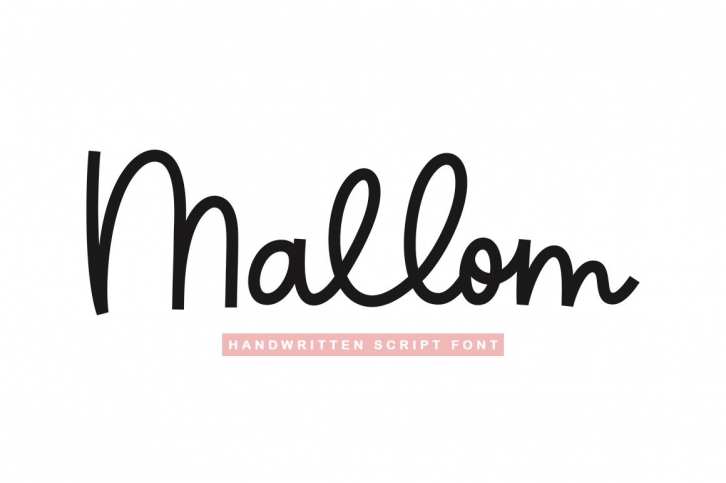
Mallom is a trendy and unique font with an authentic style. It was designed by IRF Lab Studio and it's a great choice for creative people who need such a font. It was released on July 4, 2022 and the file size is 13.1 MB. Mallom will add an organic vibe to any design idea!